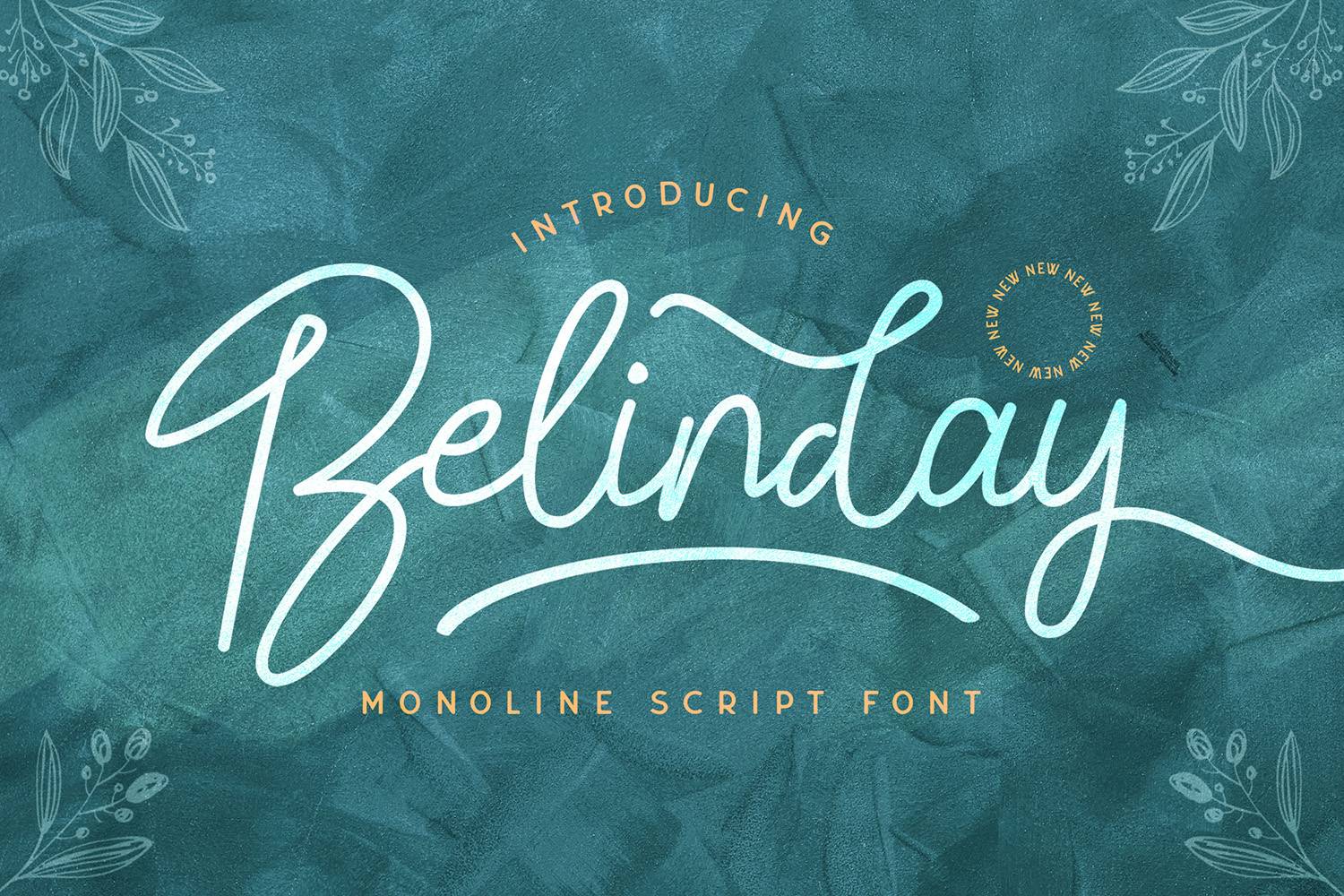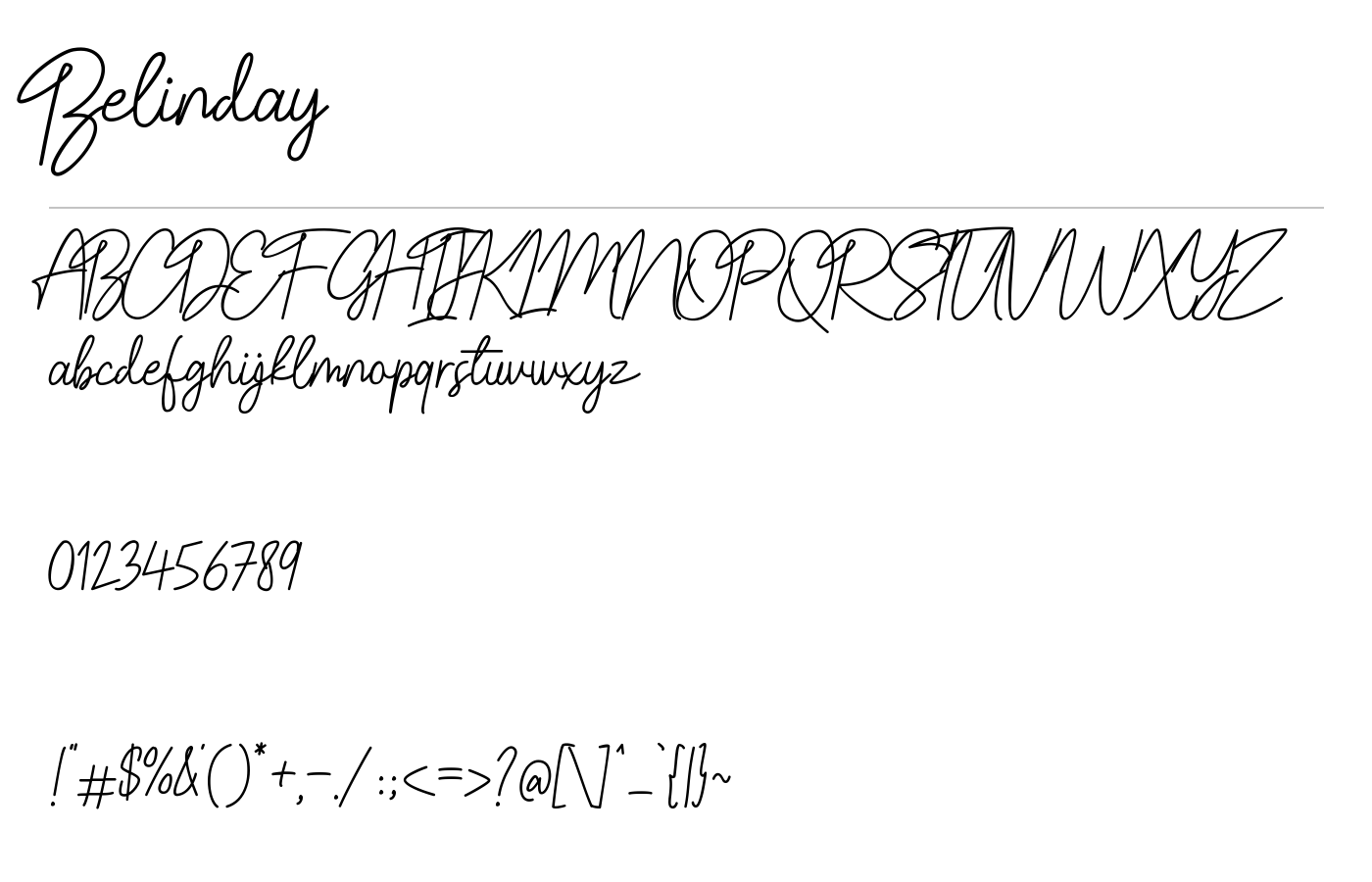
Belinday is a delicate and modern script font characterized by its thin, flowing lines and elegant, handwritten style. Its tall, airy letterforms and smooth, connected strokes give it a personal, stylish feel perfect for creative branding, invitations, and feminine design projects. This font works best in logos, editorial headlines, and decorative uses where a chic, casual vibe is desired.
Belinday Font
About Belinday Font